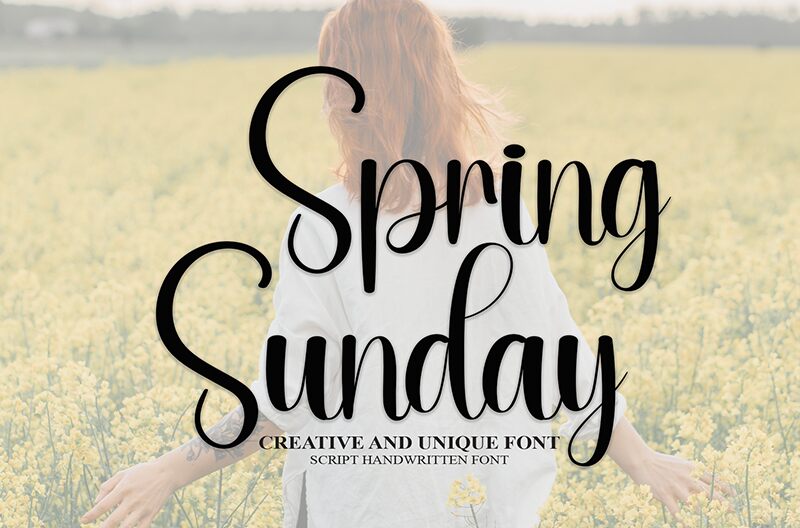
Spring Sunday
Spring Sunday font by Andi Moz is an elegant, flowing calligraphy font with a casual yet inviting appeal. As a modern script, its beautifully crafted lines and curves offer a contemporary charm, making it an ideal choice for designers seeking an aesthetic that feels both graceful and approachable.
This free calligraphy font is perfect for applications like invitations, greeting cards, and boutique or cafe branding. Its versatile design lends itself to logo creation, business cards, packaging design, social media graphics, blog headers, website titles, wedding designs (think ceremonies or receptions), custom art quotes printables and more.